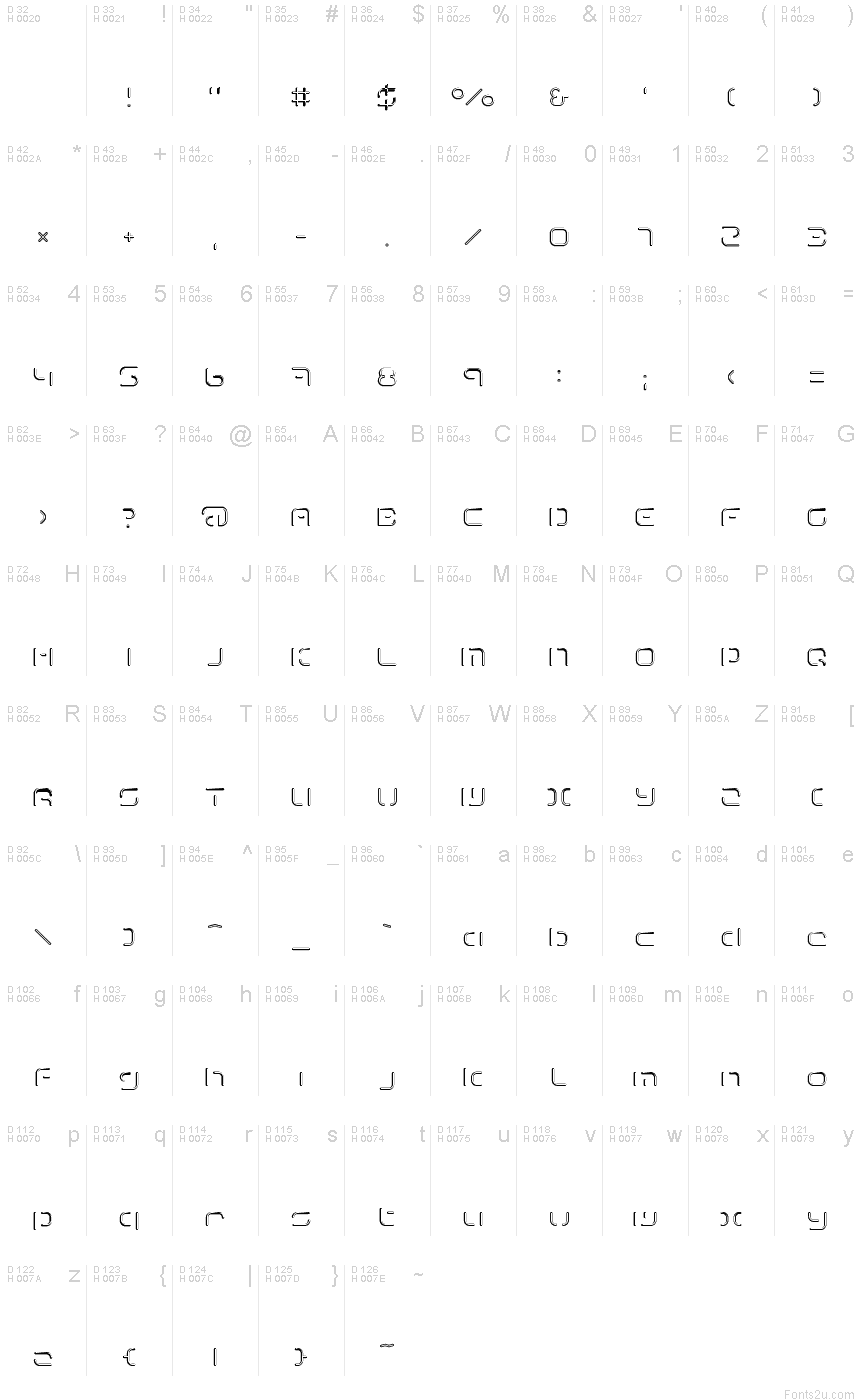
Term-RegFff
Term-RegFff by Ralf Kloeden is a free futuristic display font with a sleek, single-line look and rounded corners that make the letters feel lit from within. The forms are spare and open, with soft rectangular curves and broken strokes that give the font a calm sci-fi voice instead of a noisy techno one.
It fits naturally in interface-inspired posters, electronic music flyers, title cards, cover lines, and branding for tech or media projects where a free font needs a light, wireframe presence. Because the letters are so pared back and airy, it works best in short settings like logos, names, or section headers where that tubular rhythm can do the talking.